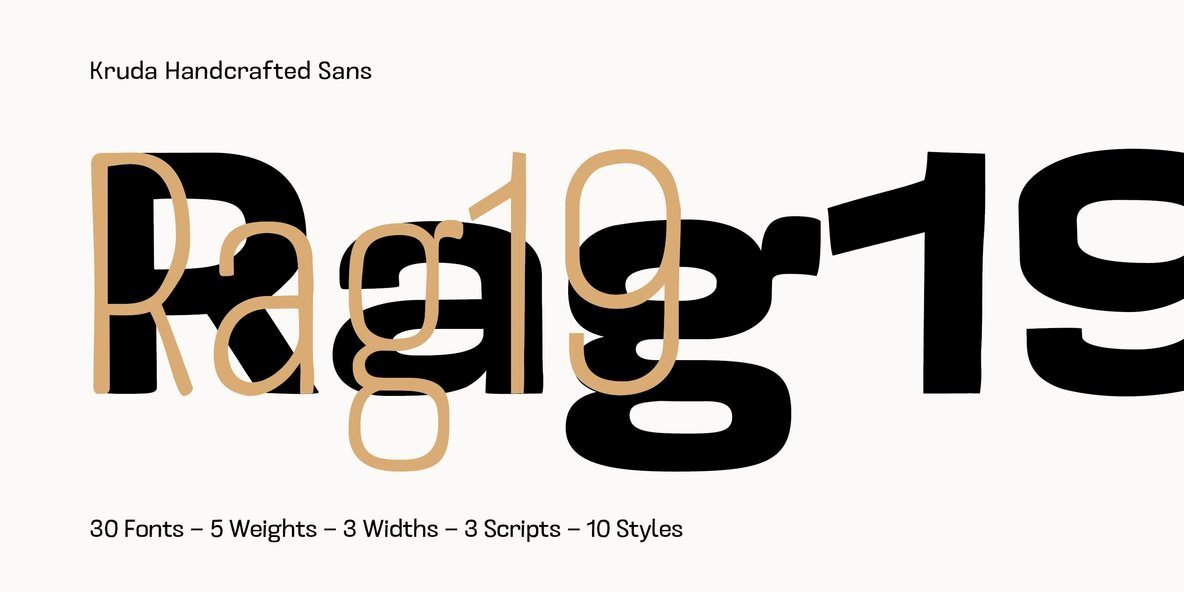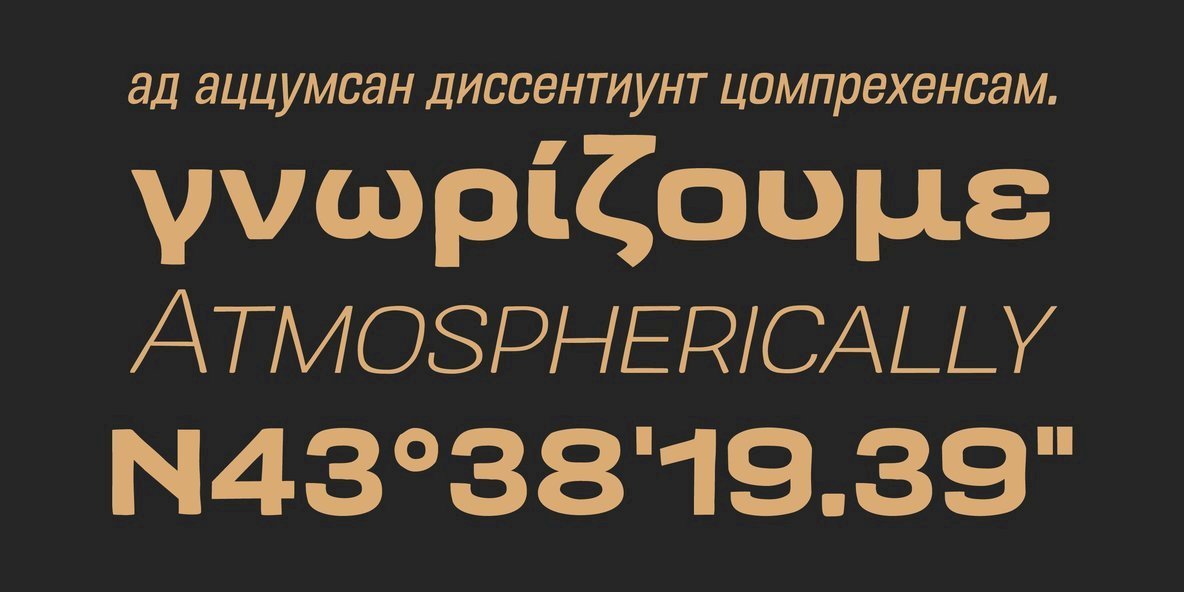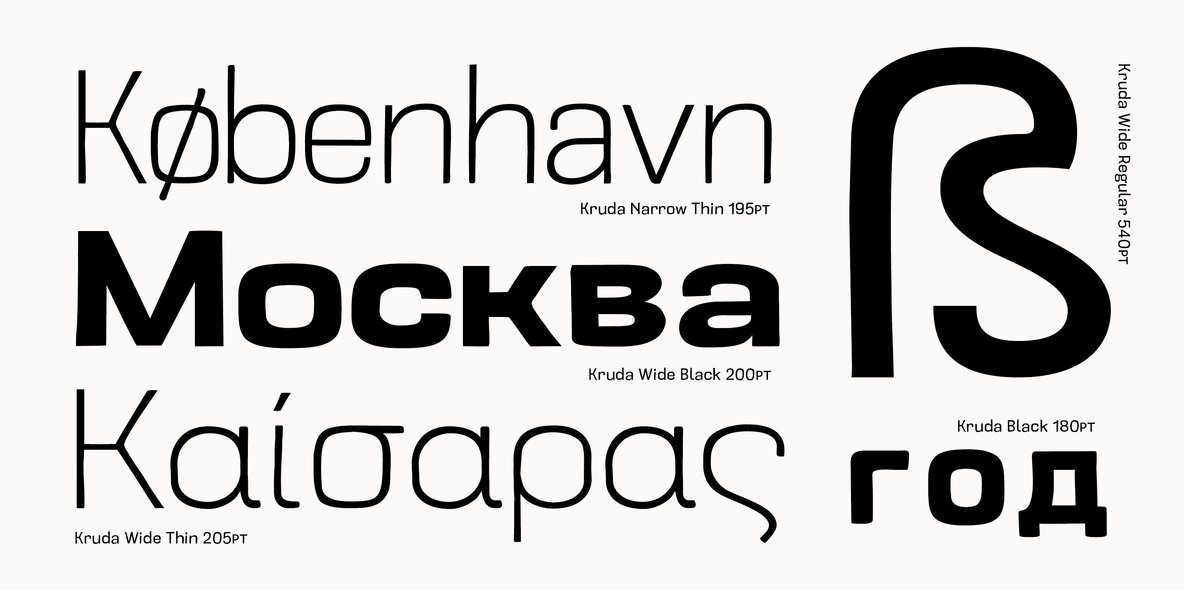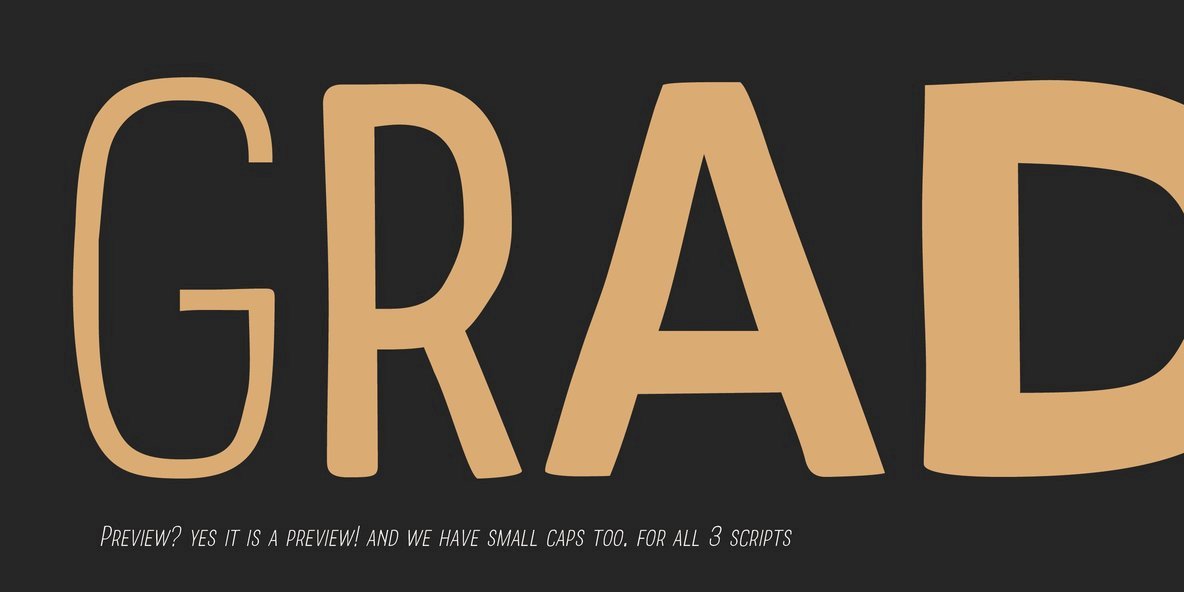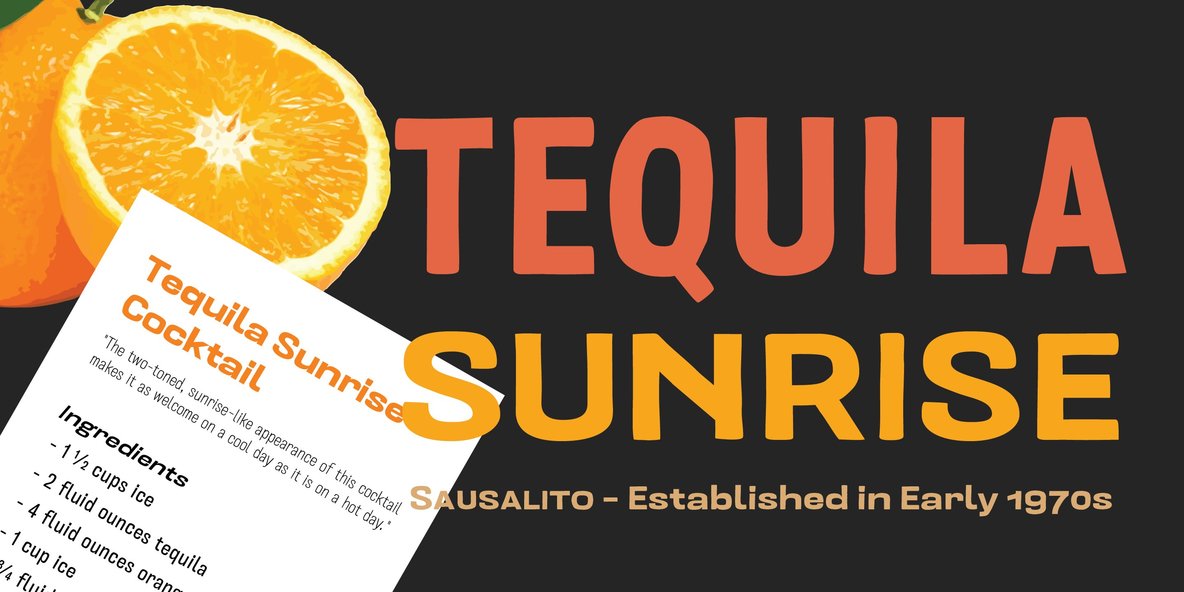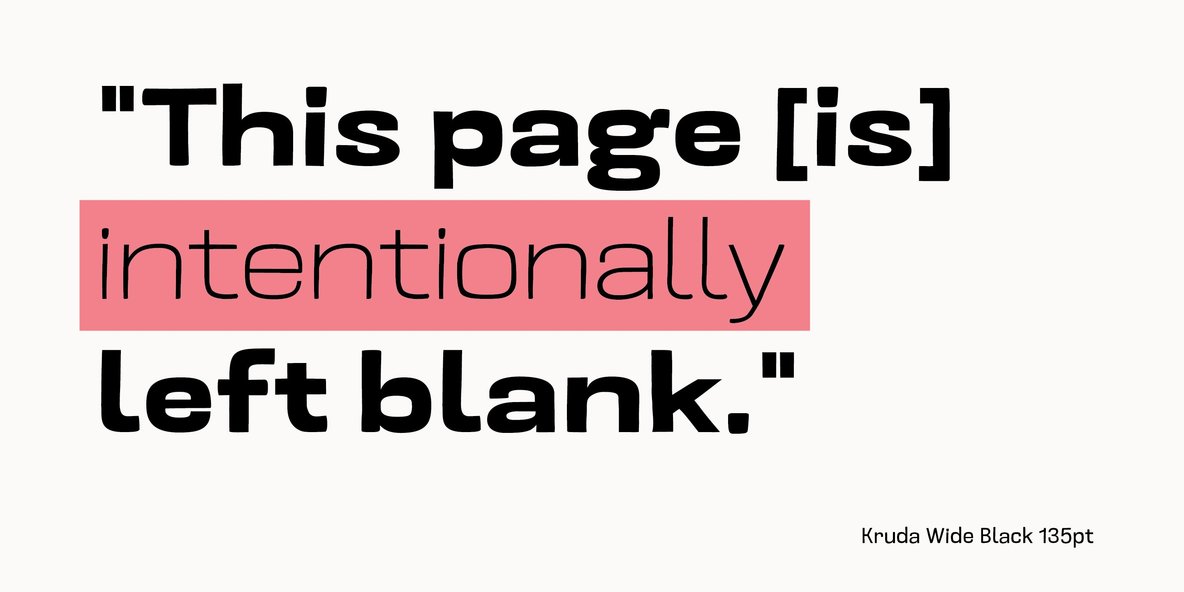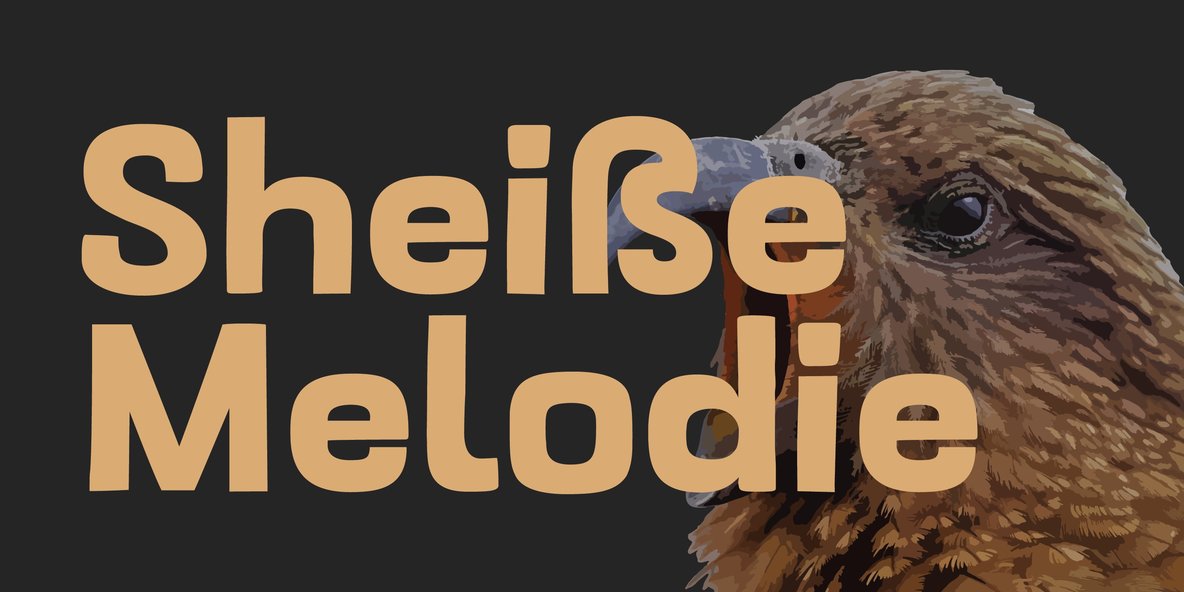
Kruda Handcrafted Sans Font
Kruda is a Handcrafted display sans with 3 widths and 5 weights with accompanying slanted version. inspired by a vintage grotesk on a worn out signs and this was an initial sketch for our typeface Naratif, but it went too far. so we completed the language support for LATIN, CYRILLIC, and GREEK. and decided to take the risk to release it.